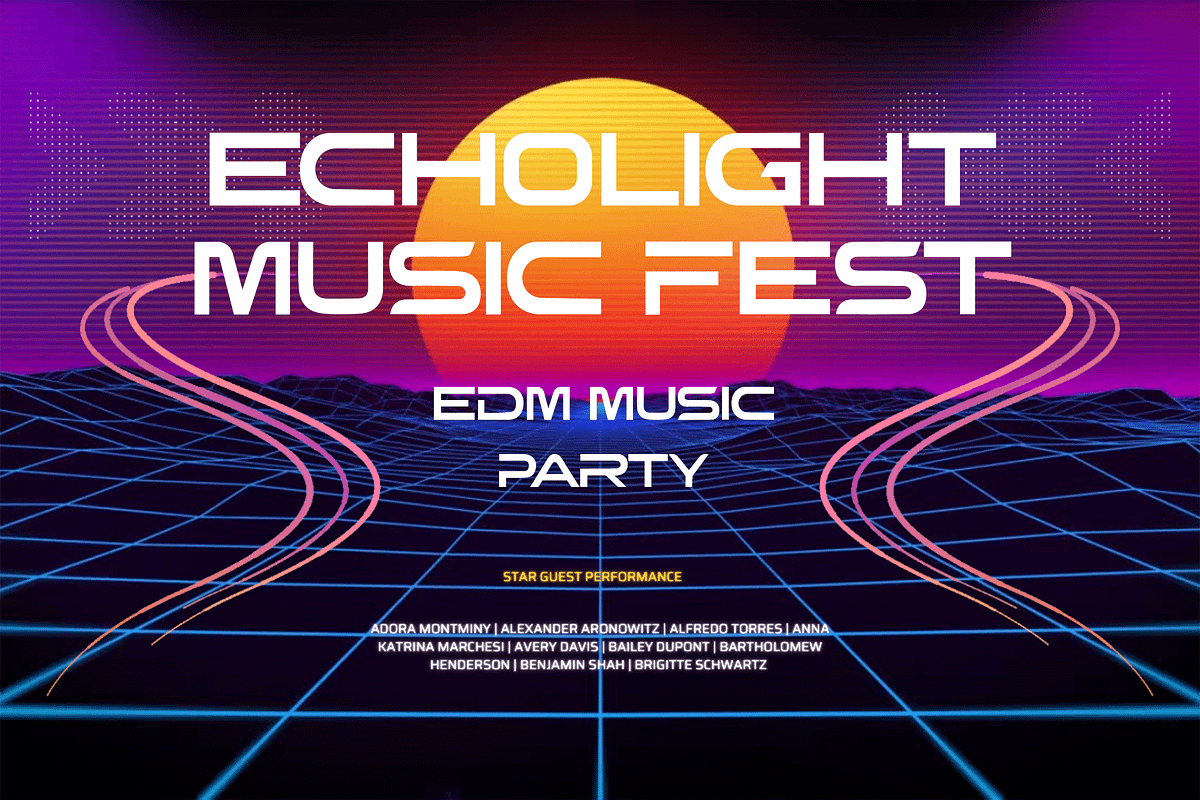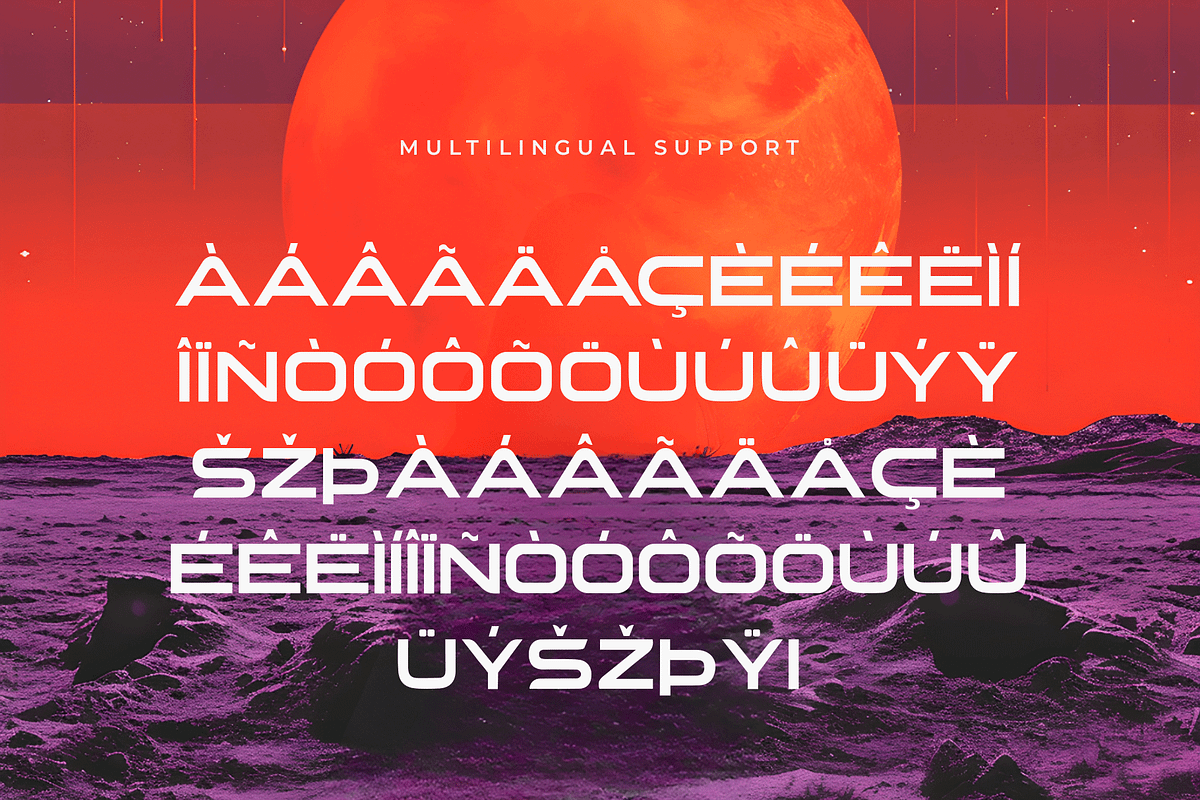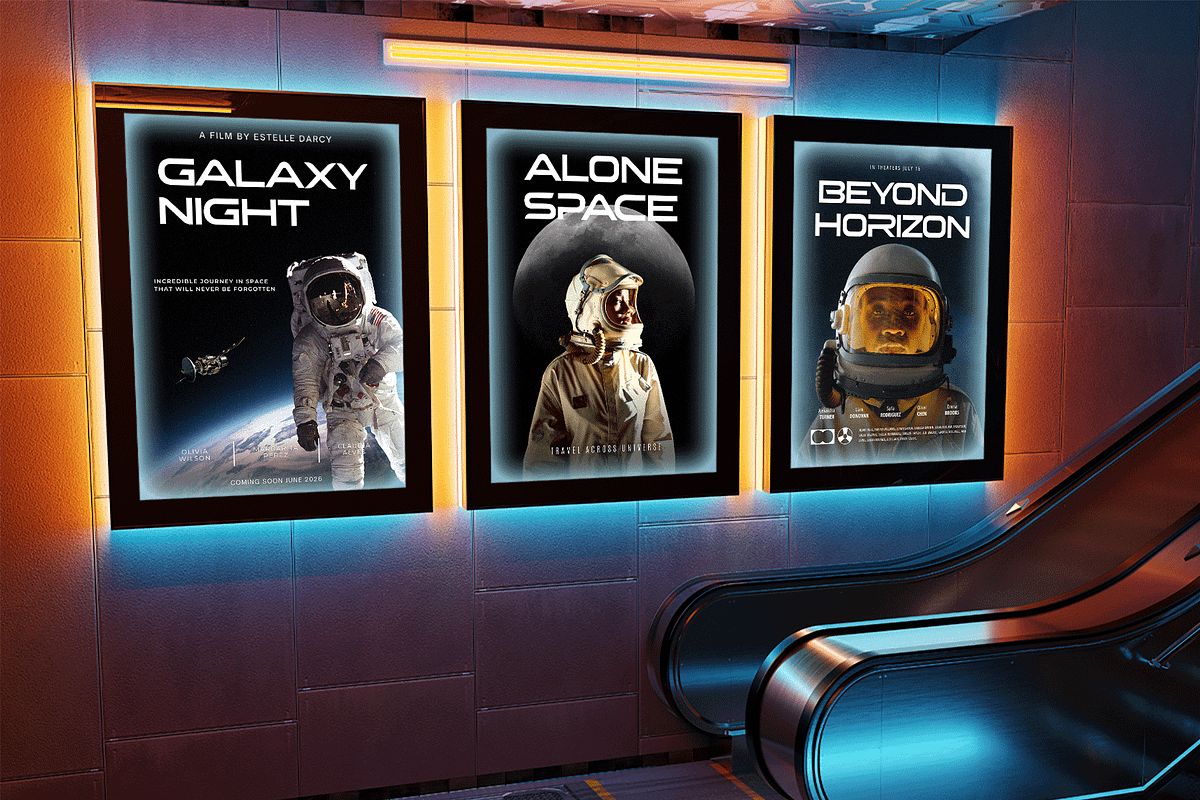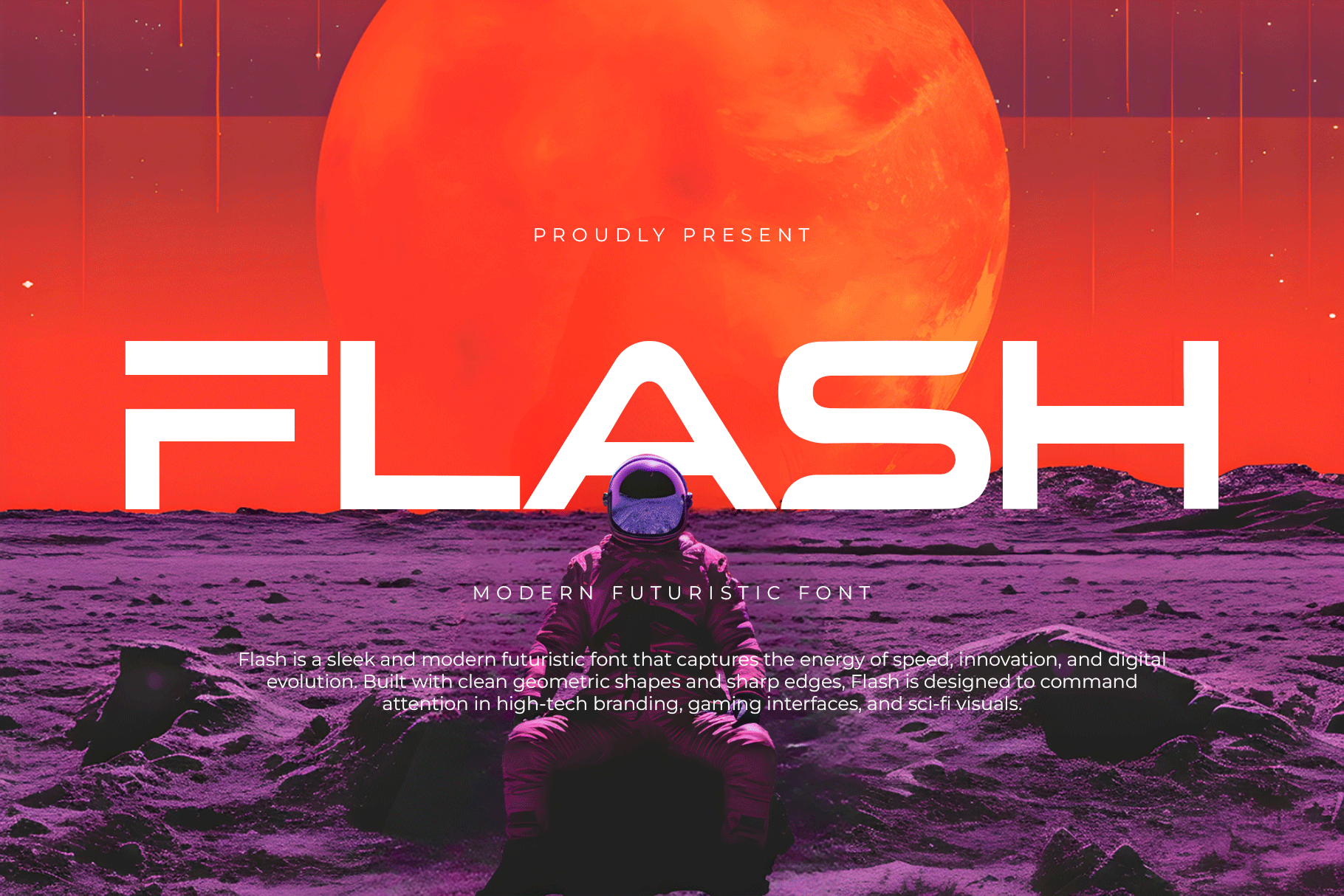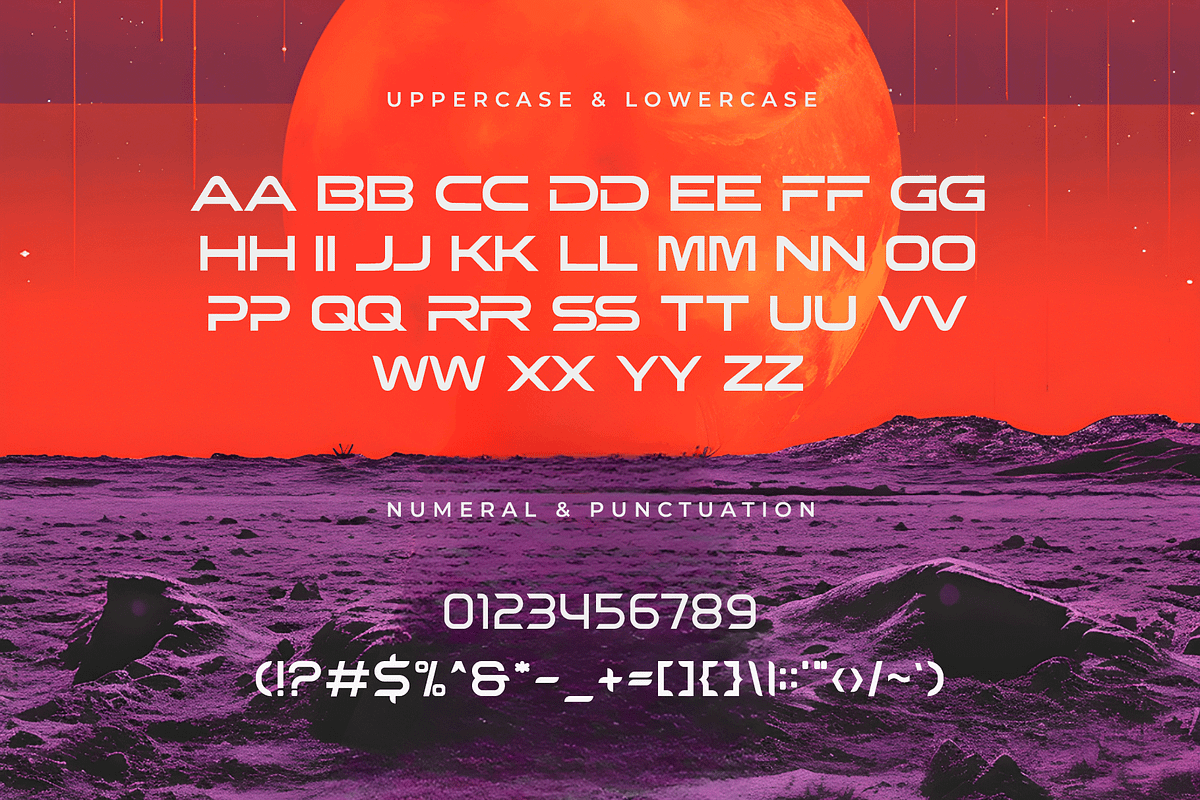
Flash – Modern Futuristic Font
Introducing Flash, a modern futuristic font crafted for high-impact visuals and forward-thinking designs. With its sleek lines, dynamic curves, and sci-fi-inspired details, Flash is the perfect fusion of modern minimalism and digital innovation.
This font is built for speed and energy—ideal for use in tech branding, gaming titles, cinematic posters, UI design, app interfaces, and more. Whether you're designing a logo for a futuristic startup or a headline that needs to pop, Flash brings instant momentum to your typography.
Give your project that high-tech edge with Flash, where every character pulses with modern velocity.